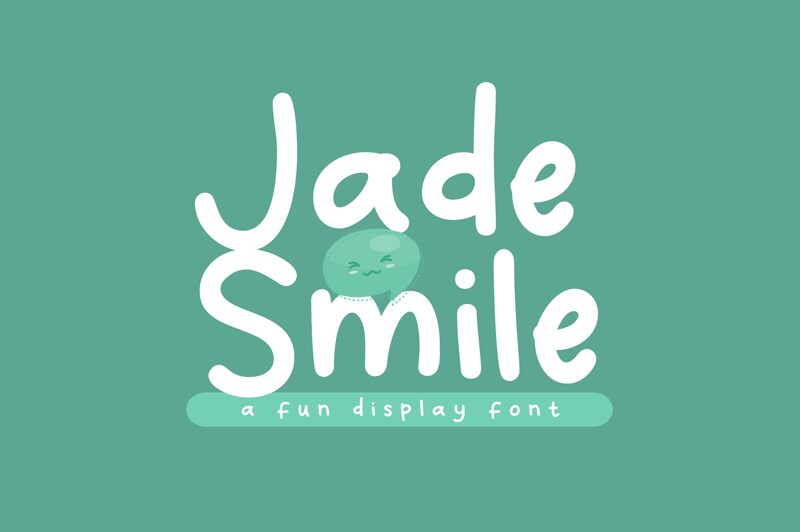
Jade Smile
Jade Smile is the perfect font for adding a touch of playfulness and lightheartedness to any project. Designed by Khurasan, this display typeface features a fun comic style that is sure to bring a smile to your audience's face. With its semi-light weight, Jade Smile is ideal for use in designs that require a more delicate touch. From children's book illustrations and greeting cards to social media graphics and branding materials, the possibilities are endless with Jade Smile. So why not add some personality and charm to your next project with this delightful font?